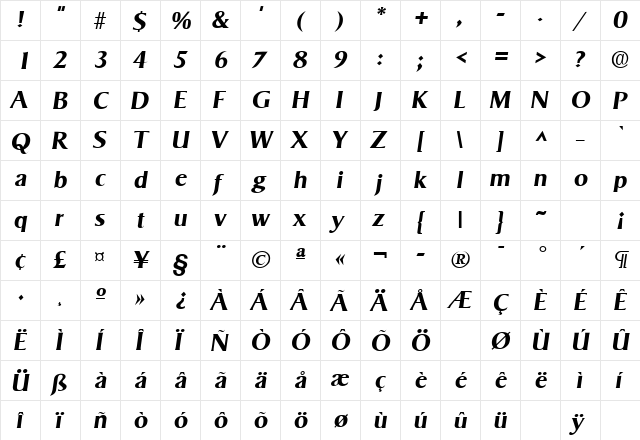
Sigvar Bold Italic Font Preview
Design Context for Sigvar Typeface
Sigvar takes a measured approach to typography — its balanced proportions and neutral character make it a reliable workhorse for both digital and print work. Its italic angle brings a sense of urgency and motion to the letterforms. The heavy weight commands attention and anchors typographic hierarchies.
Pro Tip: Try Sigvar for annotation and caption copy alongside an upright companion — the contrast in angle creates a dynamic but ordered typographic system.